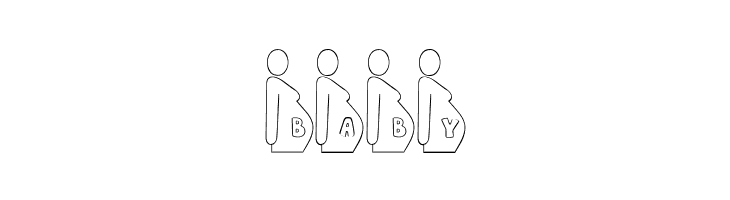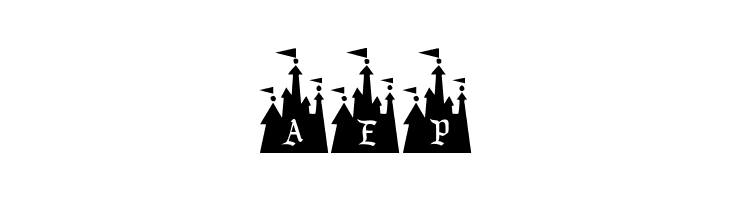
A bold, decorative font with letters enclosed in tire-like circles.
A playful font with letters inside cartoonish hand shapes, perfect for creative projects.
A decorative font with characters inside sheriff badge shapes, perfect for Western-themed designs.
A decorative font with letters inside a pregnant silhouette, ideal for maternity themes.
A whimsical, castle-themed decorative font ideal for magical and fantasy projects.
A playful font with characters enclosed in alarm clock designs, ideal for creative projects.
A whimsical, cartoonish font with bold, rounded characters featuring playful elements.
A whimsical and elegant script font with flowing, cursive letters.